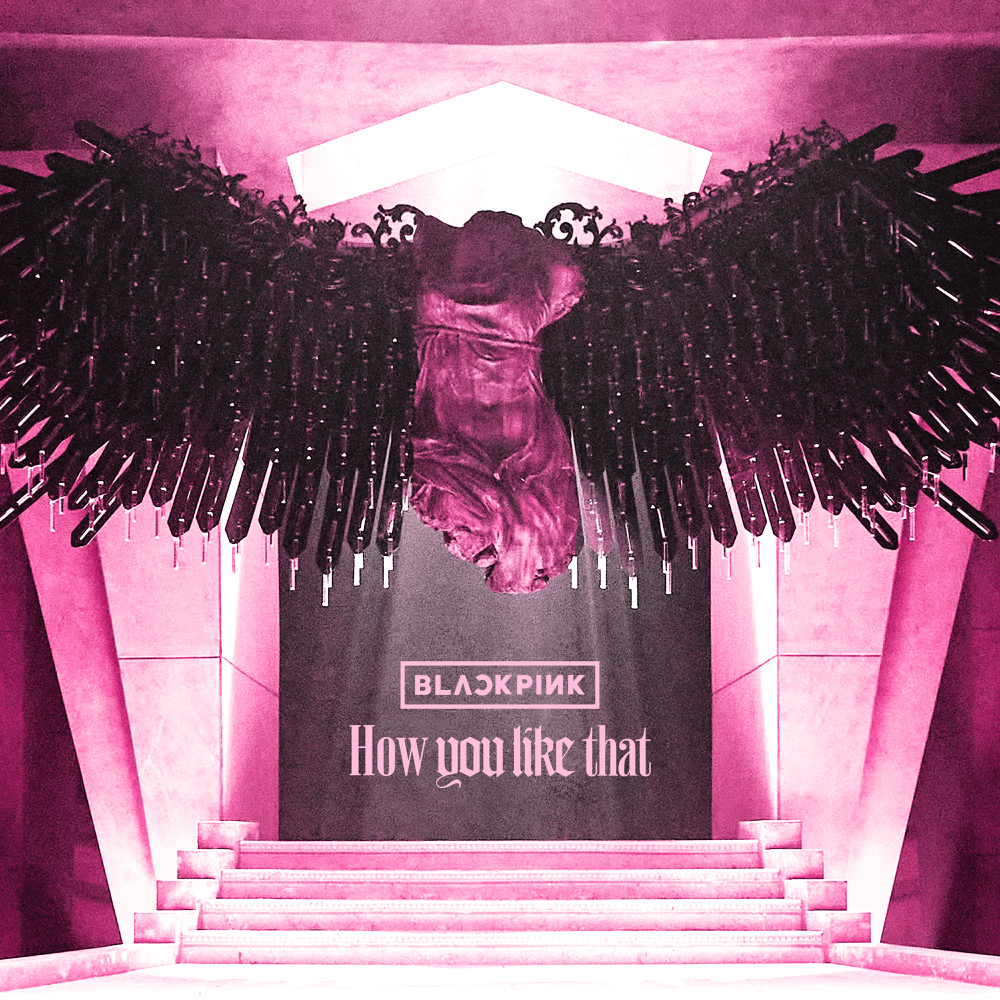
How You Like That Font
Fonts in UseHow You Like That is a single album released by the South Korean girl group BLACKPINK in 2020. The album features the title track "How You Like That" along with an instrumental version and an acapella version of the song.
The title features a combination of two fonts: Goudy Text, a blackletter font, and Vincente Extra Bold, a Didone serif font by Dharma Type's Ryoichi Tsunekawa.